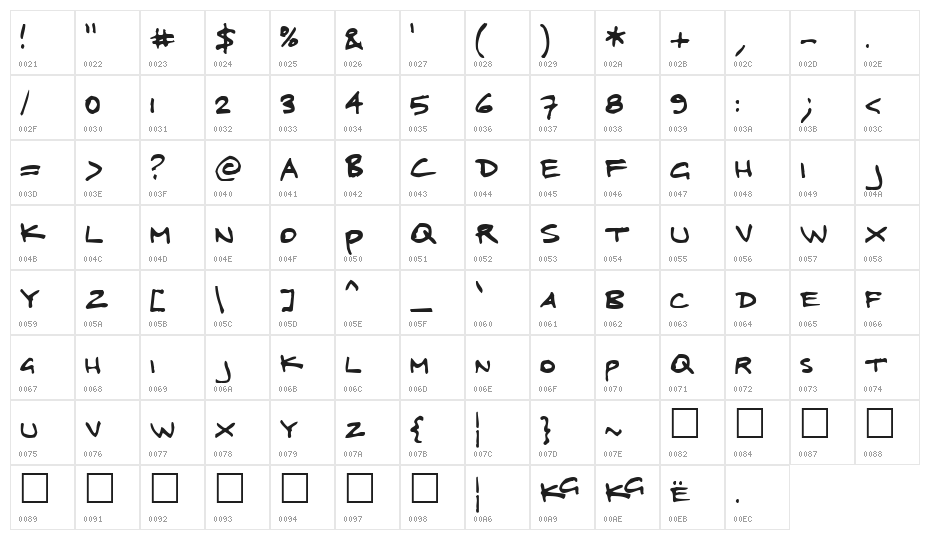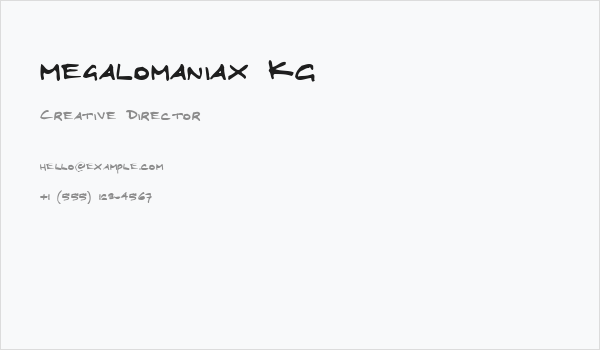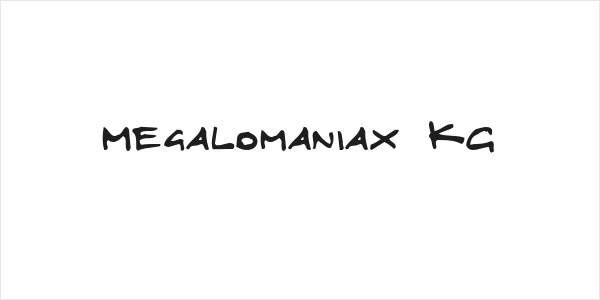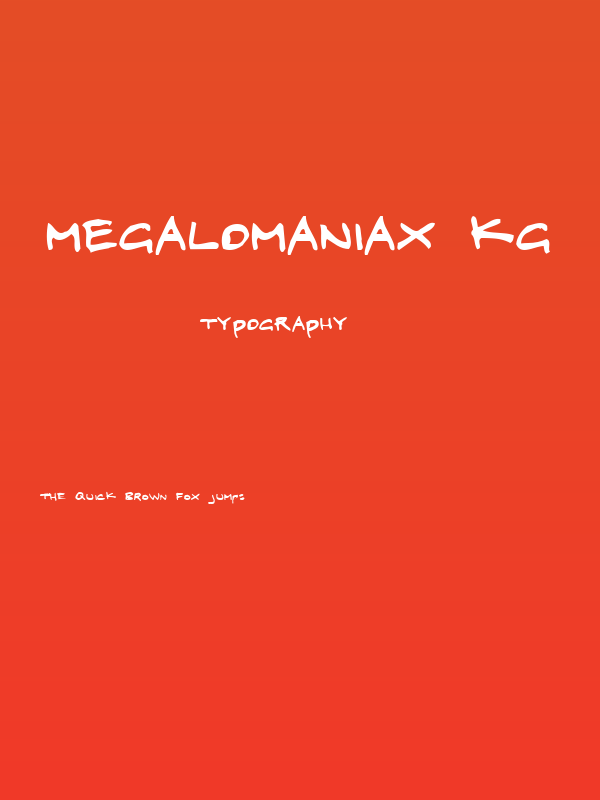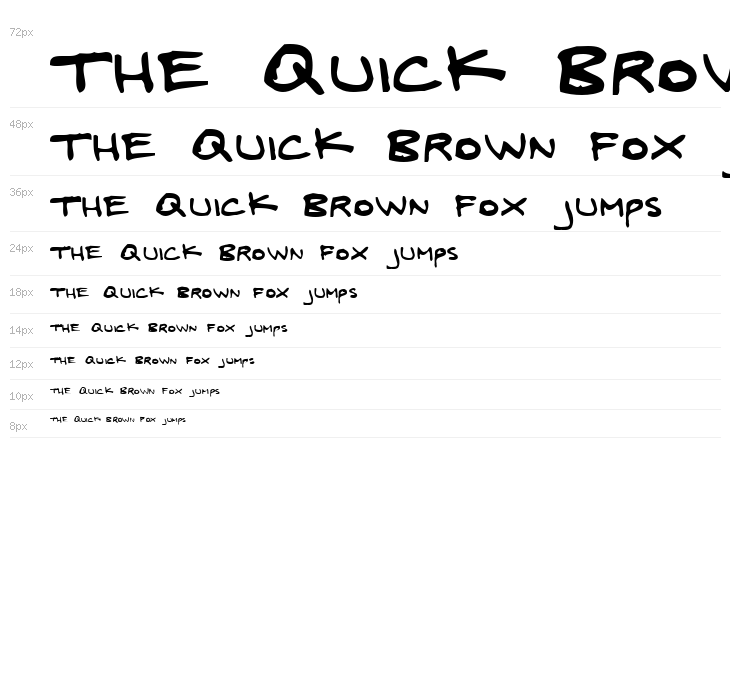
Megalomaniax KG Font
Megalomaniax KG Description
This font features a bold, handwritten style with a playful and energetic appearance. The letters are irregular and slightly slanted, giving it a casual and informal feel. The strokes are thick and uneven, adding a dynamic and spontaneous character to the text. The uppercase and lowercase letters maintain a consistent style, while the numbers and special characters complement the overall aesthetic. This font is ideal for projects that require a personal touch or a sense of creativity and fun.
| Proposed Projects | Great for greeting cards, posters, children's books, and creative branding. |